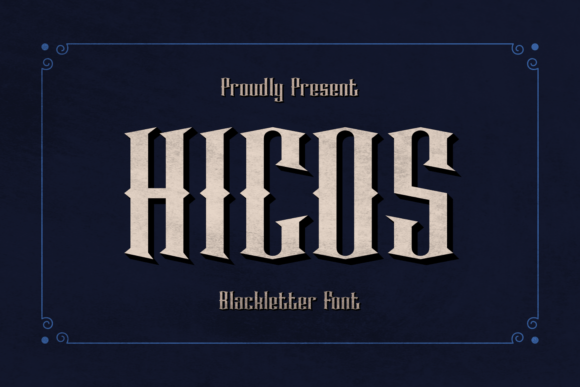
Introducing Hicos Font, the ultimate blackletter font that will take your design projects to the next level! Created by Creative Fabrica Fonts, this font is the epitome of bold and vintage style. If you're looking for the best font for your website headers, look no further!
With its classic and timeless appeal, Hicos Font is the perfect choice for those seeking a grunge and gothic aesthetic. Its tall-bodied set of characters exudes confidence and commands attention, making it ideal for creating impressive typography that leaves a lasting impression.
Whether you're working on posters, album covers, branding projects, t-shirts, or cards, Hicos Font will add a touch of sophistication and uniqueness to your designs. Its captivating presence will instantly draw the eye and create a sense of intrigue, setting your projects apart from the crowd.
What sets Hicos Font apart from the rest is its ability to evoke emotions and captivate your audience. Its vintage charm resonates with nostalgia, transporting viewers to a bygone era filled with mystery and allure. The intricate details and ornate curves of each character tell a story of craftsmanship and attention to detail.
But it's not just about looks. Hicos Font is also highly versatile and adaptable. Its wide range of potential applications ensures that it can meet the demands of various design projects. Whether you're creating a modern website with a touch of edge or going for a full-on gothic vibe, Hicos Font has got you covered.
When it comes to marketing your products or services, the right font can make all the difference. Hicos Font allows you to convey your message with clarity and elegance, leaving a lasting impact on your audience. By choosing this font, you're not just investing in a typeface; you're investing in a powerful tool that will elevate your brand and take it to new heights.